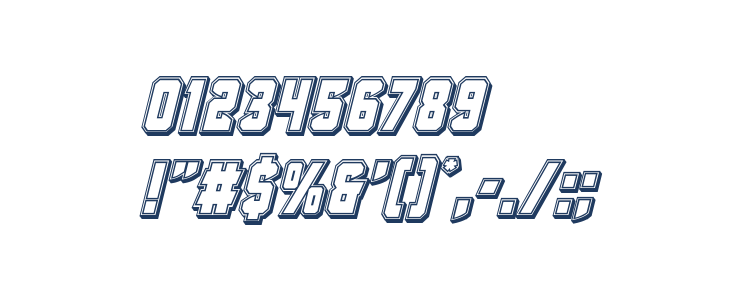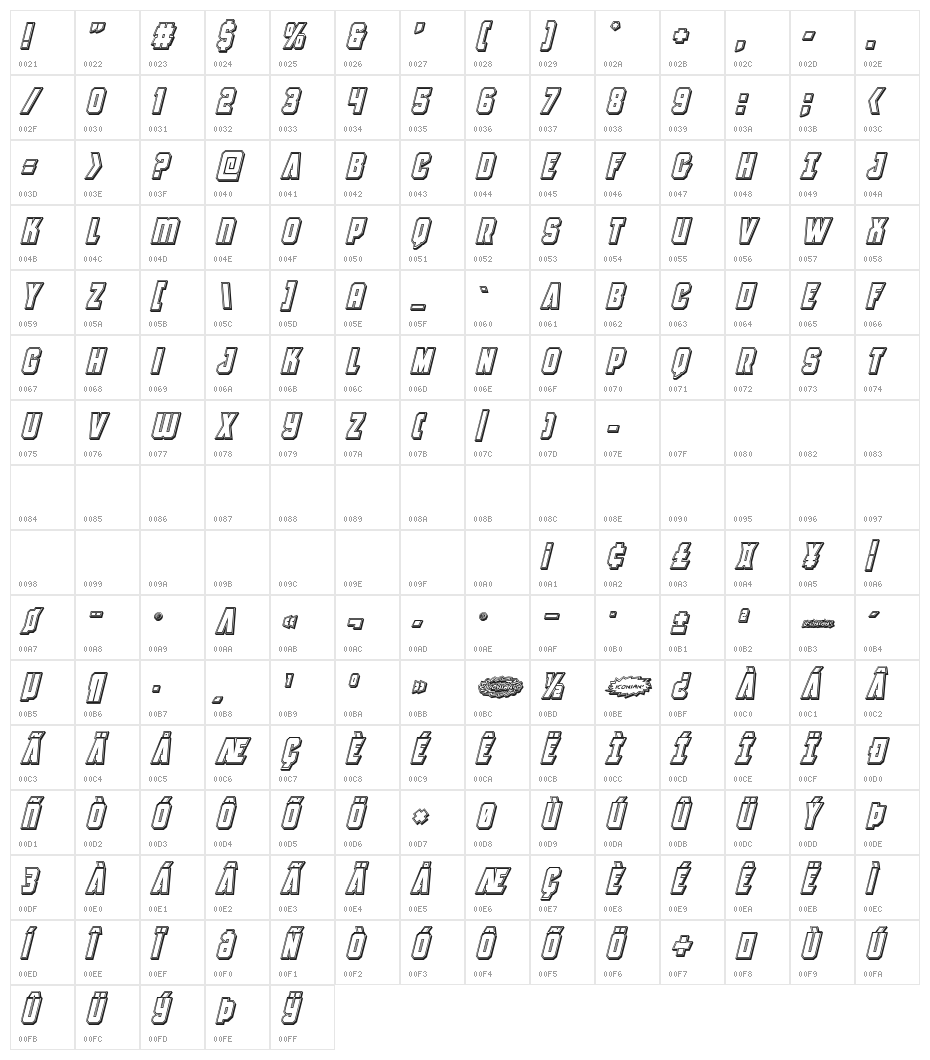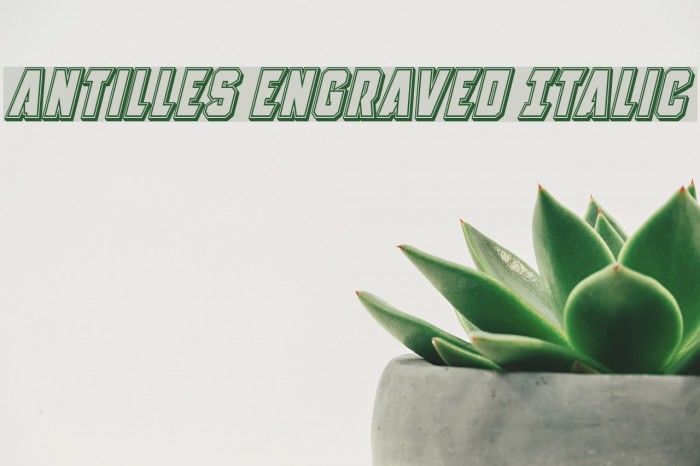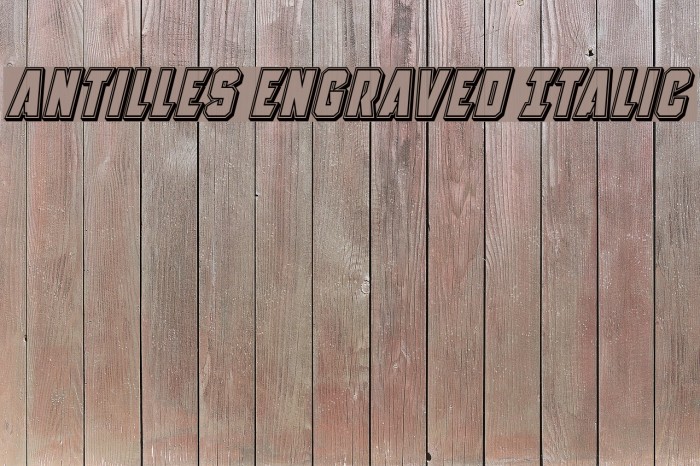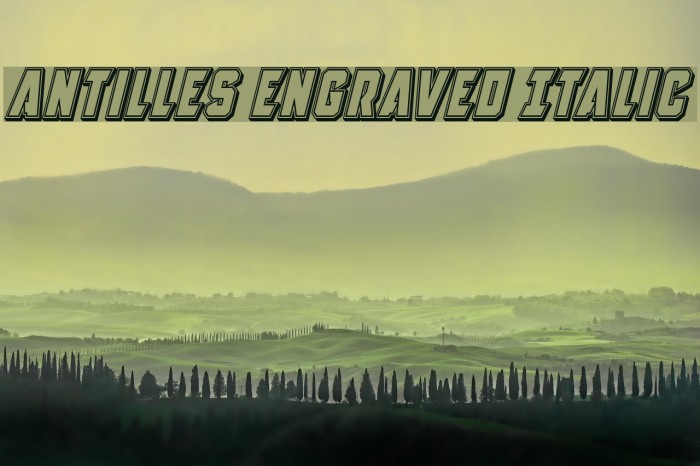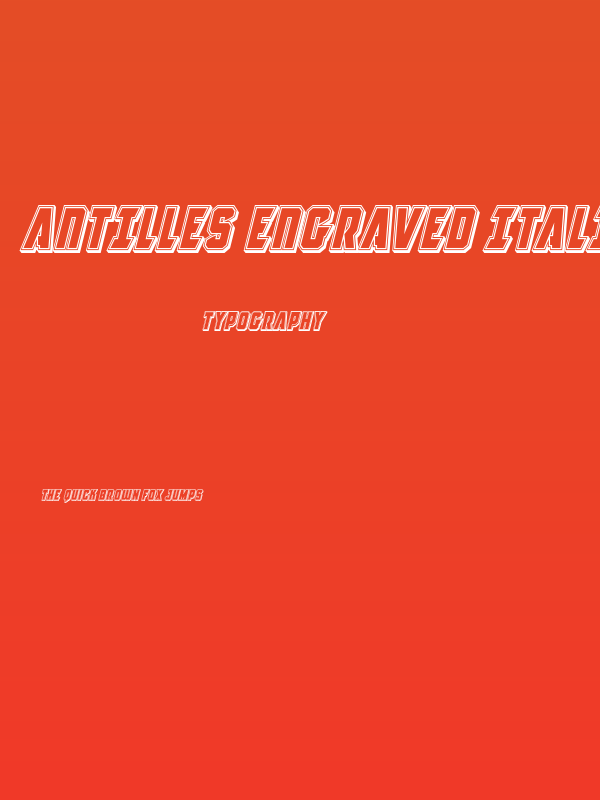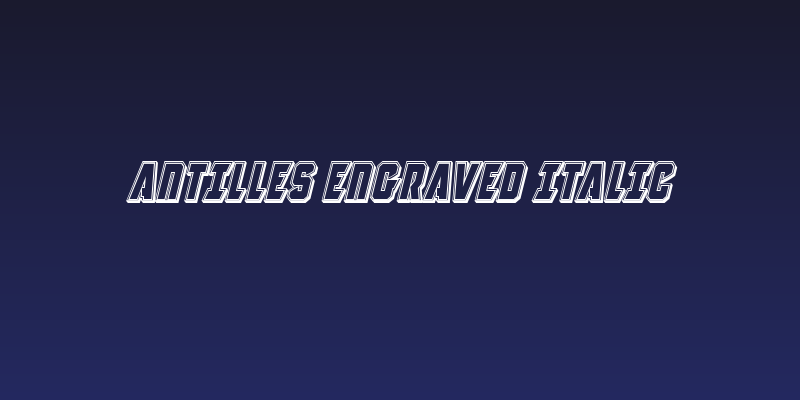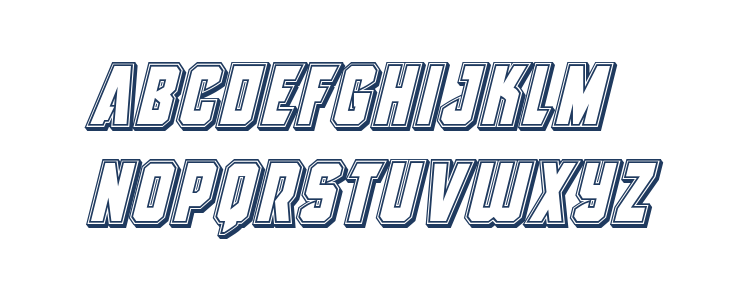
Antilles Engraved Italic Font
Antilles Engraved Italic Description
This font features a bold, italicized style with a distinct engraved appearance. The characters are outlined with a shadow effect, giving them a three-dimensional look. The uppercase letters are prominent and angular, conveying a sense of strength and modernity. The numbers and special characters maintain the same bold and dynamic style, ensuring consistency across all glyphs. The font's design is eye-catching and suitable for making a statement, with its unique engraved effect adding depth and interest.
| Proposed Projects | Ideal for use in posters, logos, and branding materials where a strong, modern impact is desired. |